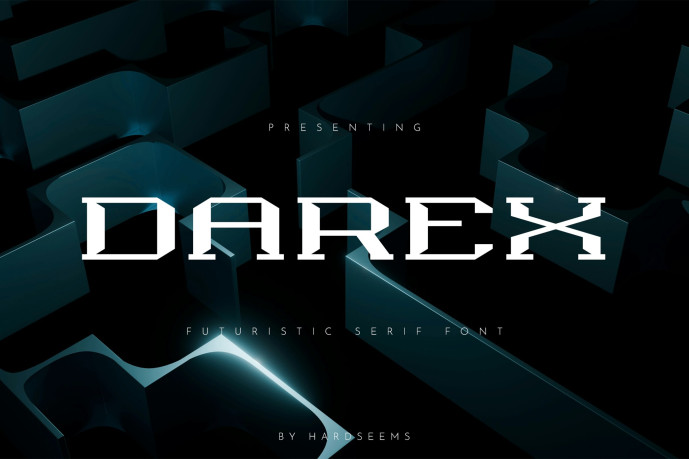
Darex – Futuristic Serif Font
Designer: hardseems
Darex – Futuristic Serif Font is a narrow futuristic serif font designed to dominate your visuals—bringing modern strength, sleek precision, and visionary vibes to any project.